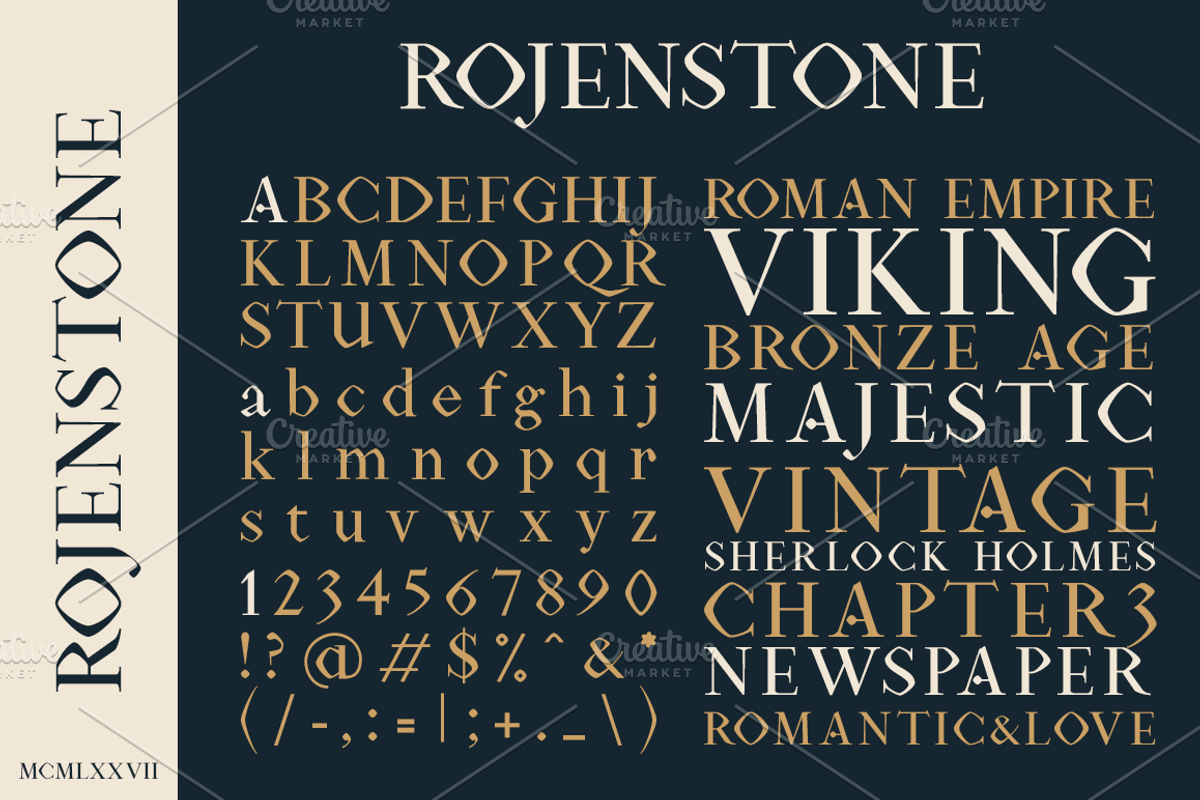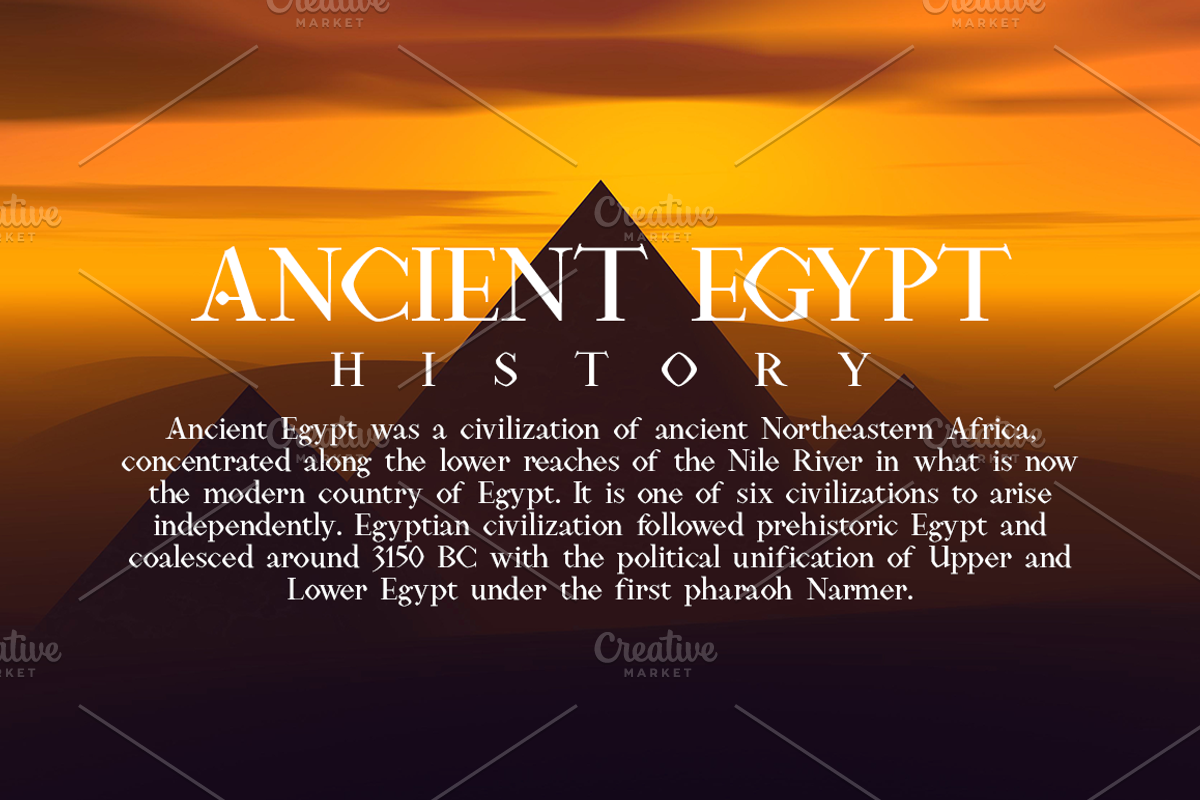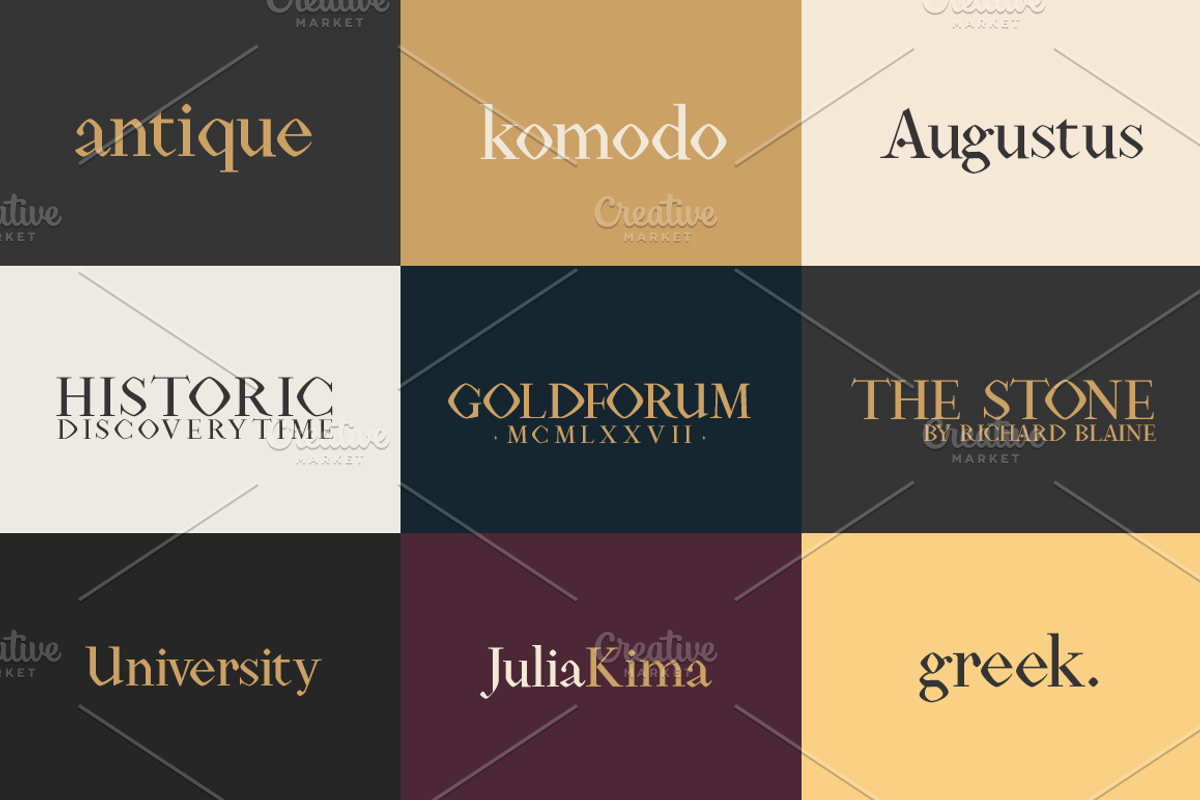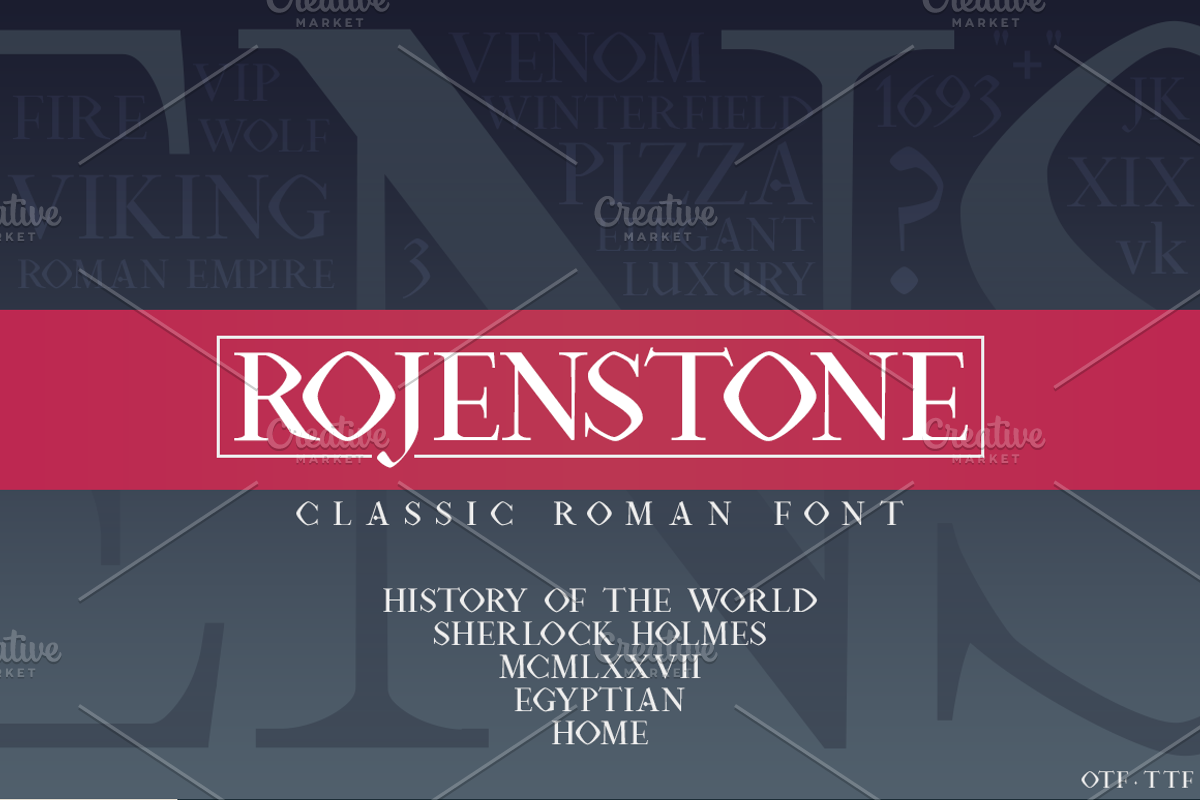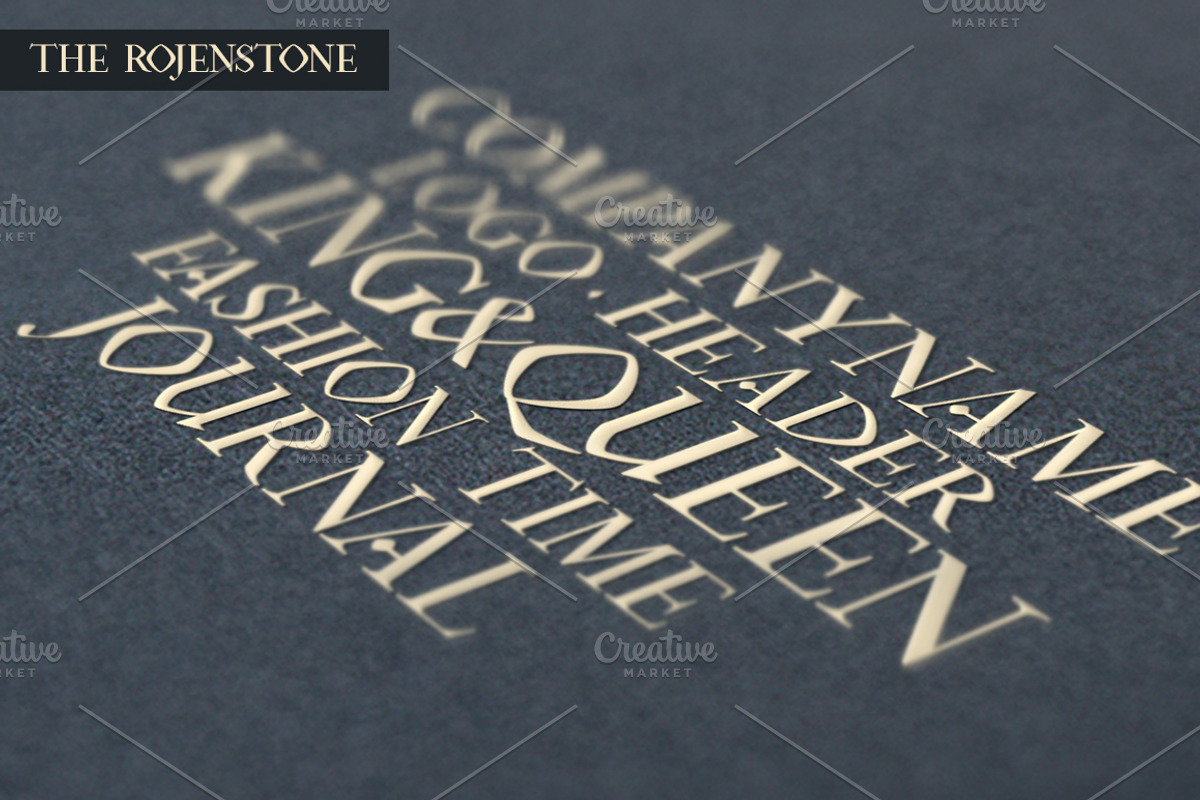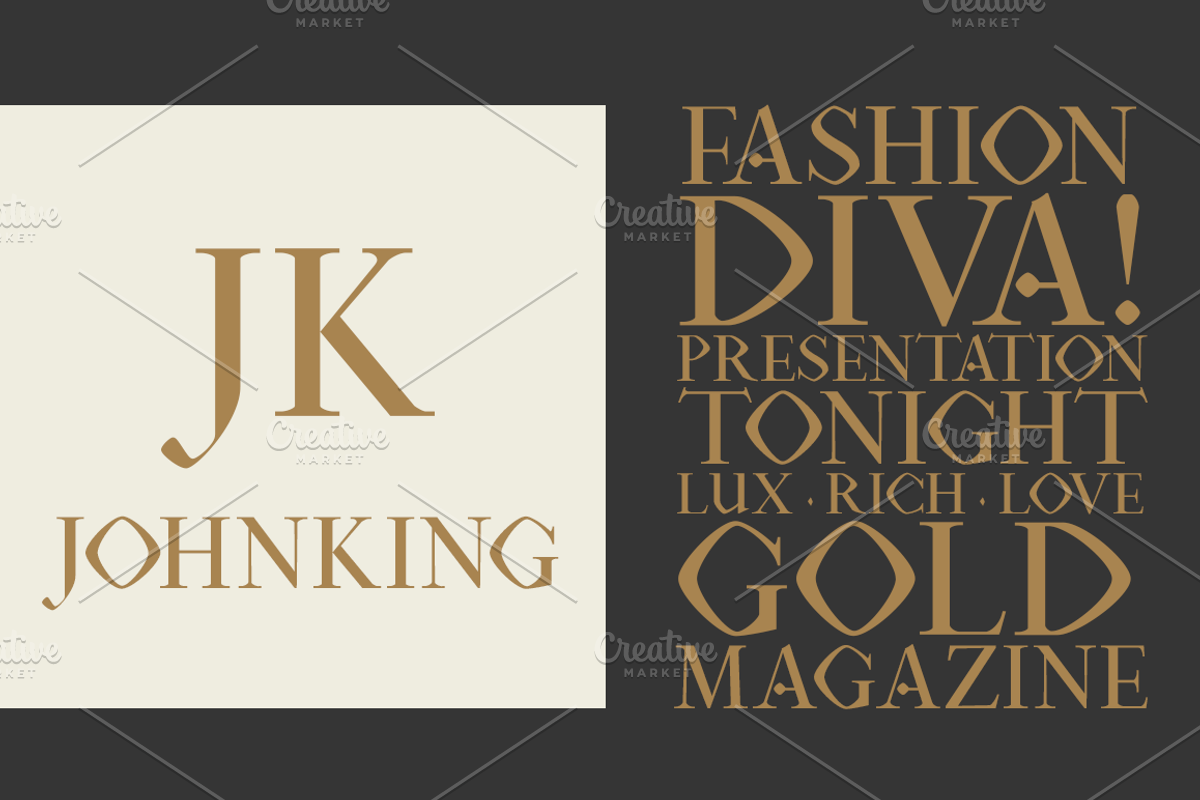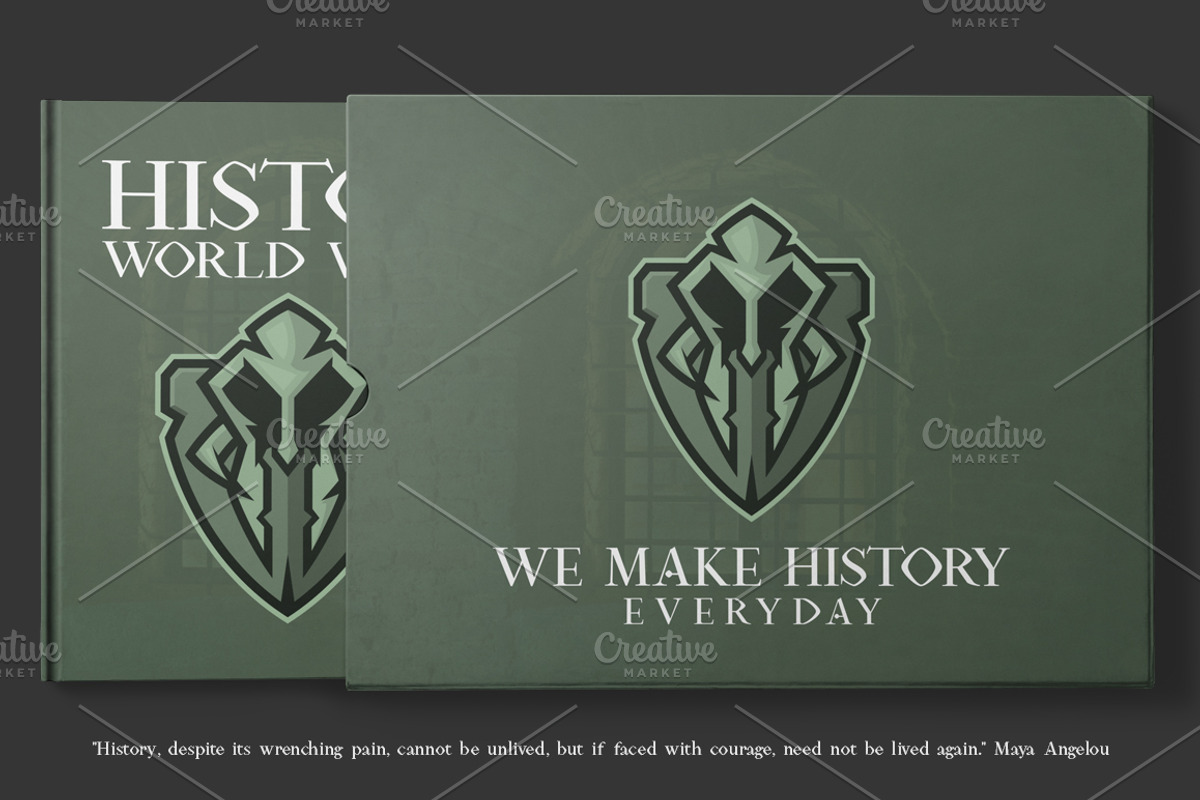
Rojenstone Font
Rojenstone Font by pixaroma is a font selected for branding, posters, packaging, typography.
- Capitals, Numerals and Punctuation.
Why Rojenstone Font is worth a look
Rojenstone Font by pixaroma fits naturally into Branding, posters, packaging, typography.